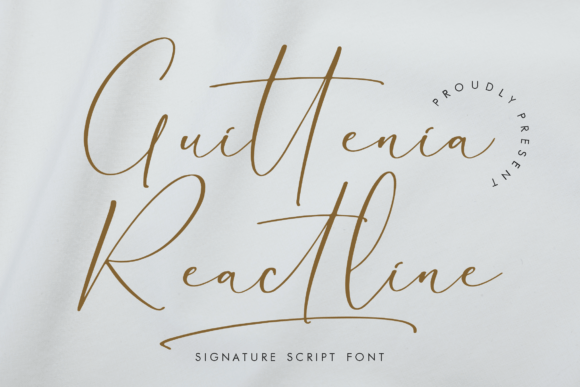
Embark on a Typographic Adventure with Guittenia Reactline: The Script Font that Captivates and Enchants
In a world where visual communication reigns supreme, choosing the right font becomes paramount. Guittenia Reactline, a signature script font, emerges as a beacon of creativity, transforming your designs into captivating works of art. Its meticulously crafted curves and elegant strokes dance across the screen, leaving an indelible mark on your audience.
Indulge in the Versatility of Guittenia Reactline: Your Design's Perfect Companion
With Guittenia Reactline, versatility takes center stage. Effortlessly adapt it to a myriad of projects, from logos and branding campaigns to homeware designs and product packaging. Its charm extends to mugs, posters, shopping bags, and t-shirts, adding a touch of sophistication to everyday items. Embrace the boundless possibilities and let your imagination soar.
Craft Unforgettable Moments with Guittenia Reactline: The Font of Lasting Impressions
Envision your designs adorned with Guittenia Reactline, captivating audiences with its timeless appeal. Your book covers, name cards, invitation cards, and greeting cards will radiate elegance, leaving a lasting impression on recipients. Its versatility extends to labels, photography, watermarks, and special events, ensuring that every touchpoint exudes creativity and professionalism.
Experience the Beauty of Script: A Touch of Elegance for Your Designs
Guittenia Reactline embodies the essence of script fonts, evoking a sense of sophistication and timeless beauty. Its flowing lines and graceful curves add a touch of charm to your designs, creating an emotional connection with your audience. Whether you're a seasoned designer or just starting your creative journey, Guittenia Reactline will elevate your work to new heights.